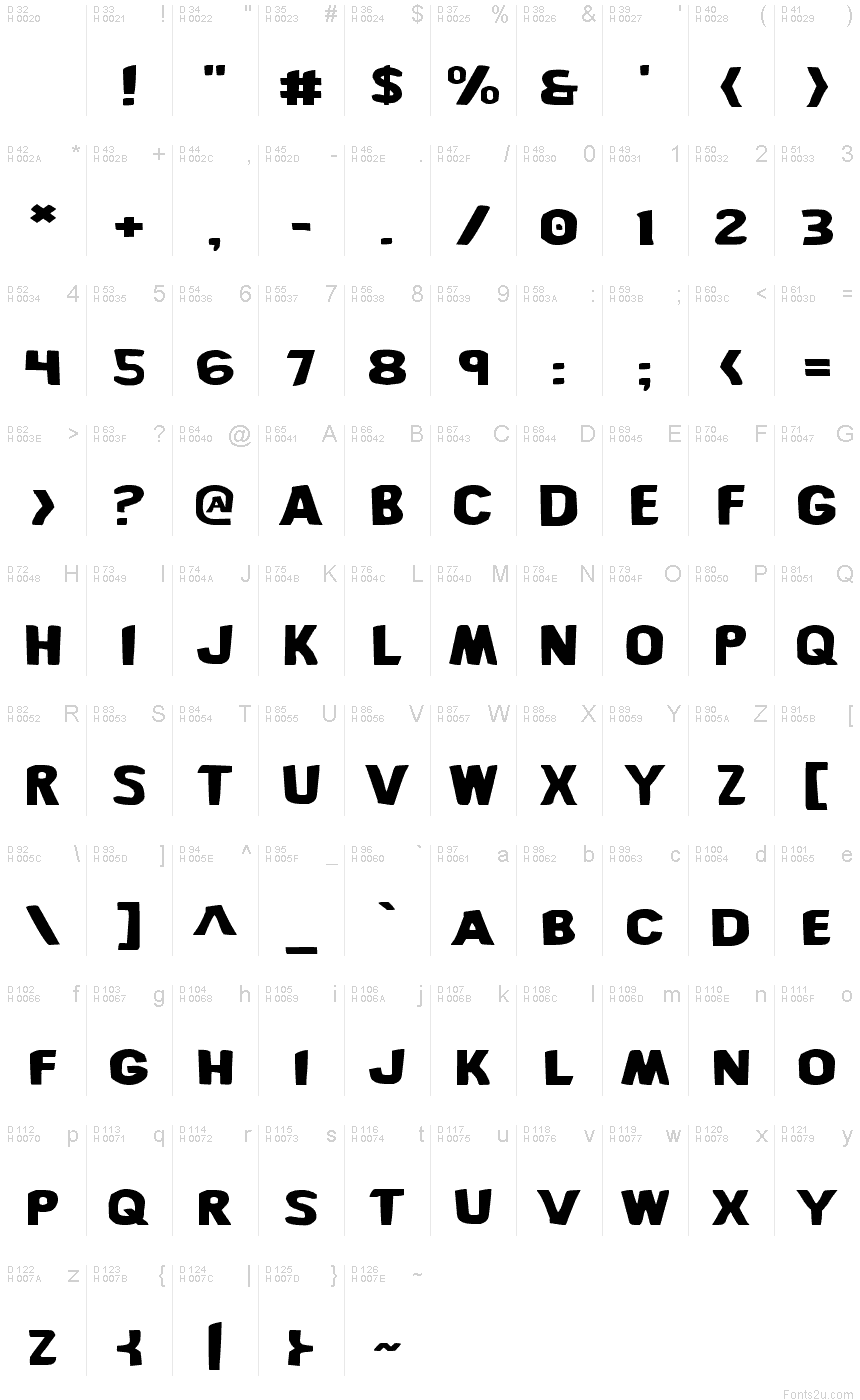
Bronic Expanded
Bronic Expanded font by Daniel Zadorozny of Iconian Fonts is a free comic display typeface with thick, blobby letters that look like they’ve been hand-cut from ink-soaked paper. The wide stance and chunky curves give the Bronic family a loud, friendly presence that jumps off the page without feeling messy or chaotic. Each character has a slightly uneven, organic edge, which keeps headlines feeling energetic and informal rather than stiff.
Using Bronic Expanded, this free font shines on comic covers, kids’ book titles, playful logos, game interfaces, YouTube thumbnails, and bold event posters. Its big, soft shapes hold up well at large sizes, where the inky weight and wonky rhythm really show. Pair this typeface with a clean, narrow sans serif for body copy to balance its wide, exuberant voice and keep layouts readable.